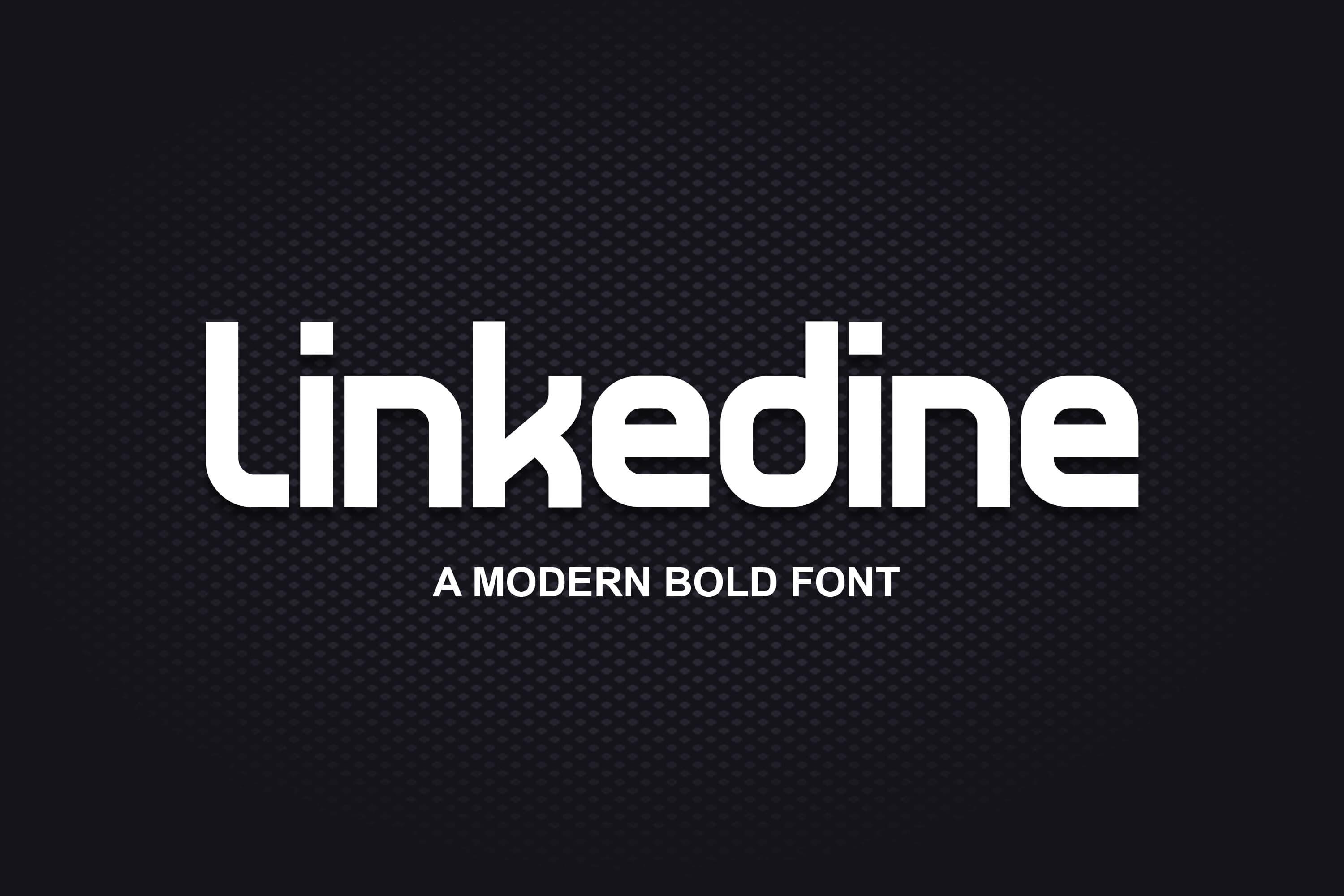
๐ Check out Linkedine Font now! Explore this ๐ sans serif fonts and claim your ๐ free download here. Let's start crafting together! ๐ Discover Linkedine, an exquisitely clean and bold display font, that masterfully combines contemporary aesthetic...